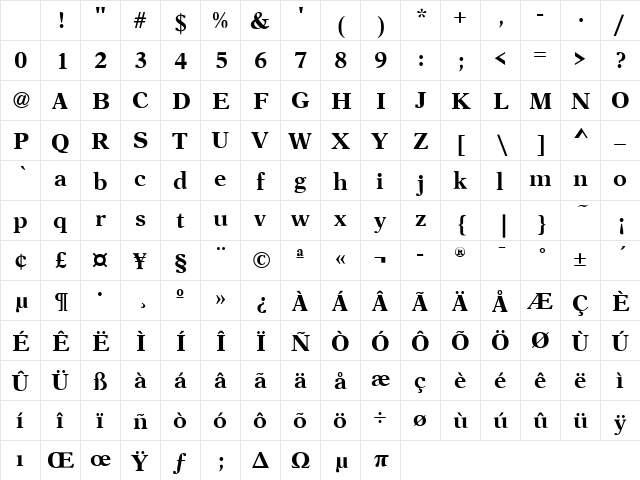
Complete AsterEF Medium glyph index. Displaying only characters natively supported by AsterEF Medium font.
AsterEF is a composed and adaptable typeface that performs quietly and consistently across a wide range of design contexts.